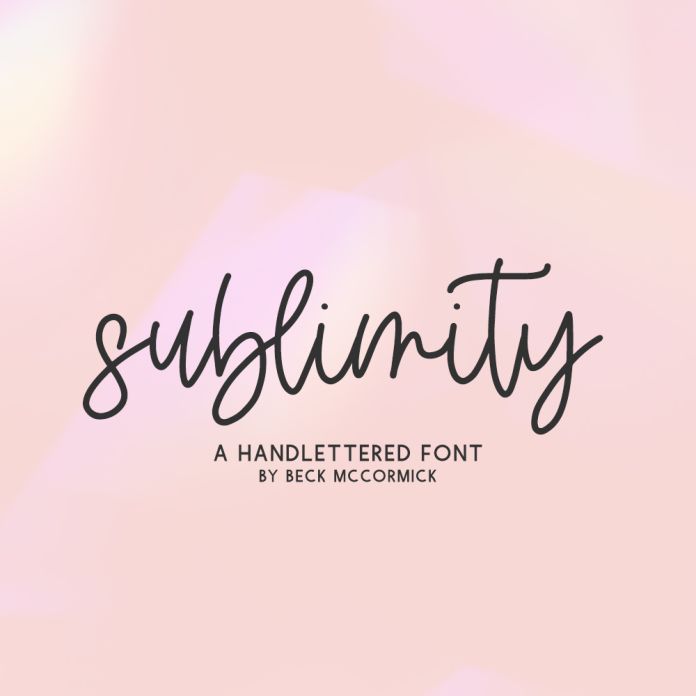
Introducing Sublimity Script, a bouncy monoline script.
Sublimity Script is best for:
- feminine, crafty projects with your Cricut or Silhouette machine, or your SVG design business